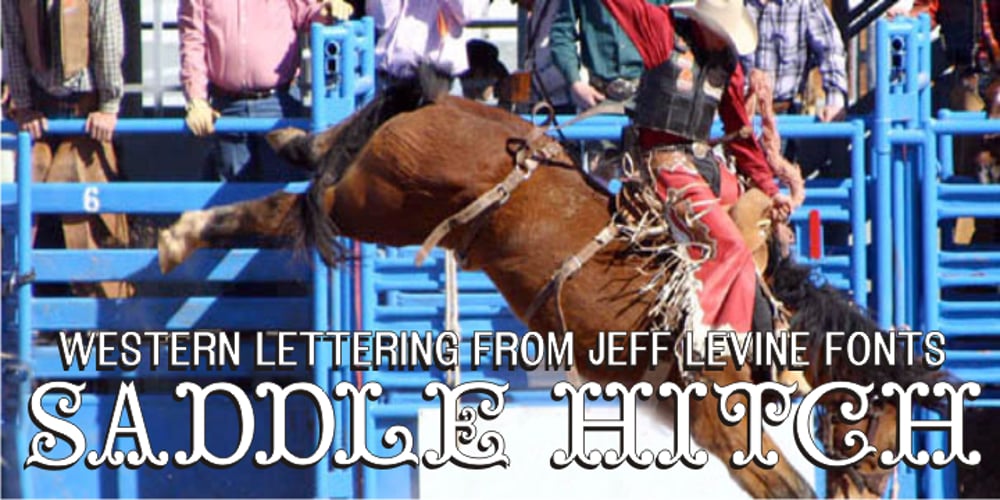
Saddle Hitch JNL
Saddle Hitch JNL font
Saddle Hitch JNL Font Family was designed by Jeff Levine and published by Jeff Levine. Saddle Hitch JNL contains 1 styles and family package options. Saddle Hitch JNL is a Western font inspired by a few words set in a decorative typeface from an 1887 publication.